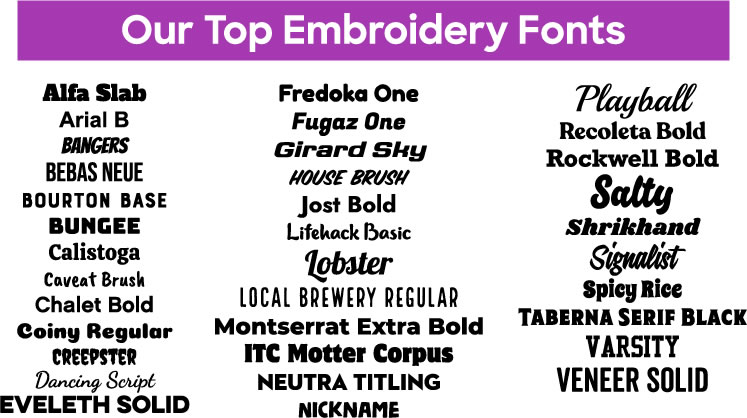
The 35 Best Fonts for Embroidery
Whether you’re creating custom polos for your team, or hats that highlight your brand’s logo, embroidery is an awesome way to add an extra level of polish to your design. This stitched on style makes it easy to create professional products for any occasion and is a great way to create durable long-lasting designs.
Just like screen printing, there are some special tips and tricks to make sure your embroidered design really pops, and one of the easiest ways to do so is picking the perfect font. With so many options to choose from, it may seem hard to know where to begin, but we’re here to help!
In order to help you get the most out of your embroidered apparel, we’ve prepared this list of the best fonts for embroidery, as well as a couple helpful hints so you can create embroidered custom apparel that truly stands the test of time.
Types of Fonts
First, let’s talk about fonts. When it comes to embroidery, the simpler your font is the better. That’s why sans serif fonts work best in embroidered designs. If you’re not familiar with the difference between serif and sans serif fonts, no worries! We’ve prepared a quick primer for you:
- A serif font has short lines at the ends of the letters, making it look less blocky. One of the most popular serif fonts that you might know is Times.
- Sans serif fonts are just that–a font “sans” or without serif. A common sans serif font is Arial.
The 35 Best Font for Embroidery
- Alfa Slab
- Arial B
- Bangers
- Bebas Neue
- Bourton Base
- Bungee
- Calistoga
- Caveat Brush
- Chalet Bold
- Coiny Regular
- Creepster
- Dancing Script
- Eveleth Solid
- Fredoka One
- Fugaz One
- Girard Sky
- House Brush
- Jost Bold
- Lifehack Basic
- Lobster
- Local Brewery Regular
- Montserrat Extra Bold
- ITC Motter Corpus
- Neutra Titling
- Nickname
- Playball
- Recoleta Bold
- Rockwell Bold
- Salty
- Shrikhand
- Signalist
- Spicy Rice
- Taberna Serif Black
- Varsity
- Veneer Solid
Embroidery Fonts FAQ
Which fonts work best for embroidery?
Fonts with clean, bold lines stitch best. Very thin, small, or detailed lettering can lose its shape in thread, so keep small text simple.
Can I use more than one font in an embroidered design?
Yes. A common pairing is one bold font for the main name and a simple font for smaller text like a year or a location.